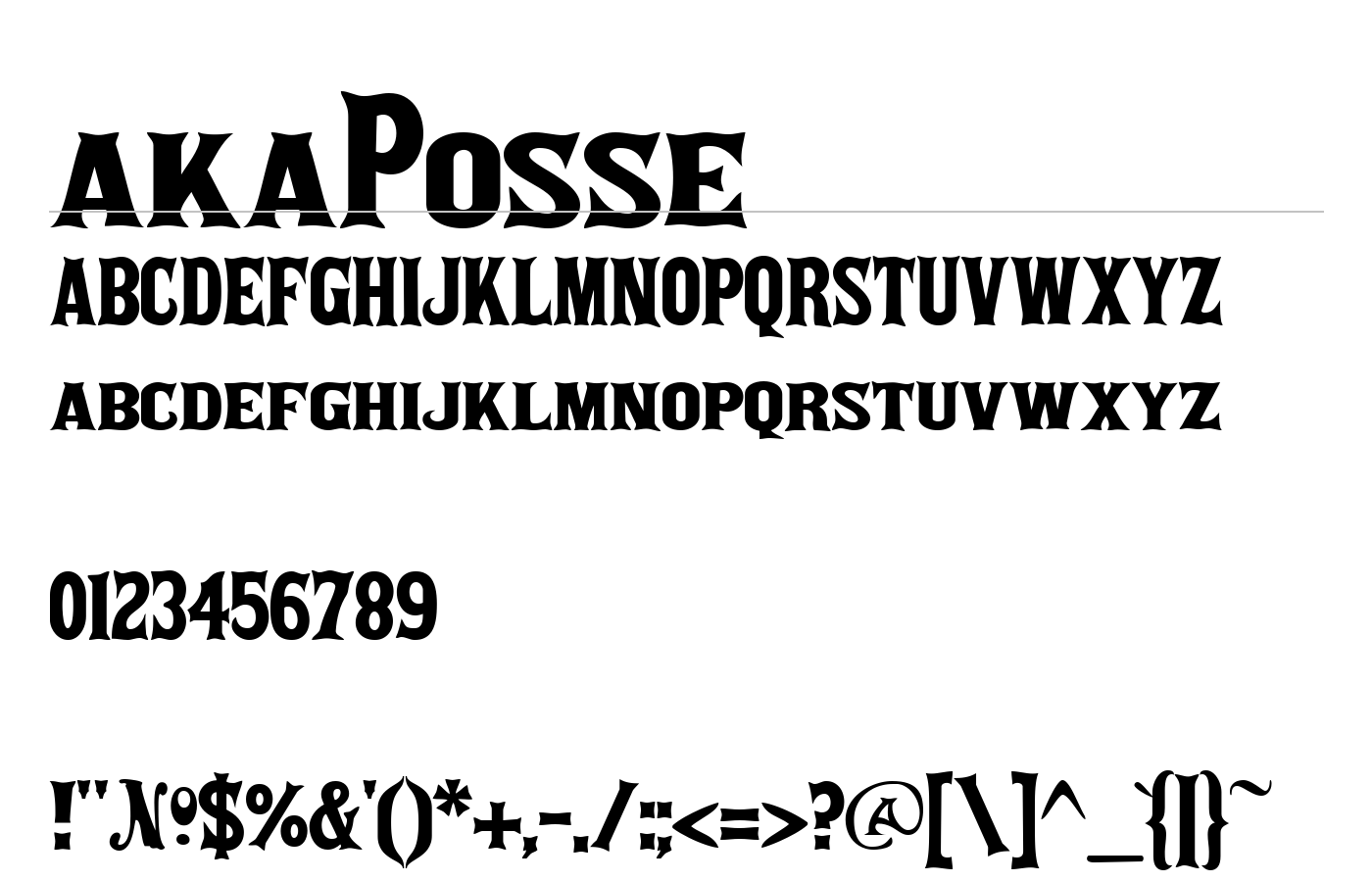
akaPosse is a bold, condensed serif font with a distinctive Western-inspired style, featuring sharp, flared serifs and high contrast between thick and thin strokes. Its strong, vintage character makes it ideal for eye-catching headlines, logos, and branding that evoke a rugged, adventurous mood. This font works best in display settings where its unique personality can truly stand out.
akaPosse Font
About akaPosse Font
| Designer | James Milligan |